Handwritten Fonts That Feel Personal Without Looking Unpolished
The best handwritten fonts for commercial use add personality without making a design feel unfinished. They can give a logo the warmth of a personal signature, soften the presentation of a product label, or make a social media graphic feel less mechanical.
The difficult part is finding a handwritten typeface that still performs like a professional design tool. Some scripts are beautiful in a large preview but become difficult to read on packaging, mobile screens, or small vinyl cuts. Others repeat letterforms so obviously that the handwriting illusion disappears after a few words.
This selection focuses on fonts with clear commercial applications. It includes casual handwriting, polished signature scripts, textured brush lettering, playful display styles, and practical font duos. Several appeared in Creative Fabricaโs current โPopular this weekโ font section when this guide was researched.
- Best for practical notes and labels: Simple Handwriting
- Best for personal-brand logos: Luxodia Signature
- Best for boutique branding: Honey
- Best for food and cafรฉ projects: Milkshake
- Best coordinated duo: Little Things Duo
How I Picked These
I compared these handwritten fonts by readability, commercial versatility, personality, small-size performance, suitability for logos and packaging, pairing flexibility, and how well each style can add a handmade feel without making practical customer-facing text harder to read.
16 Best Handwritten Fonts for Commercial Use
1. Simple Handwriting
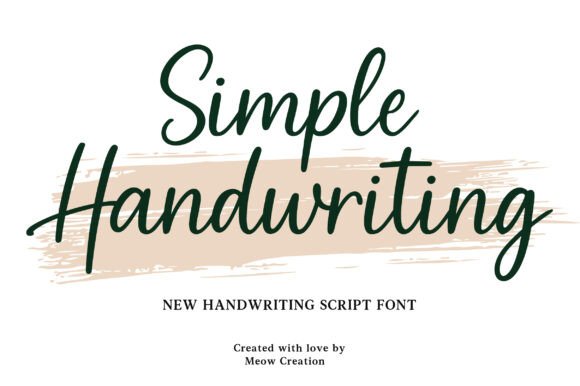
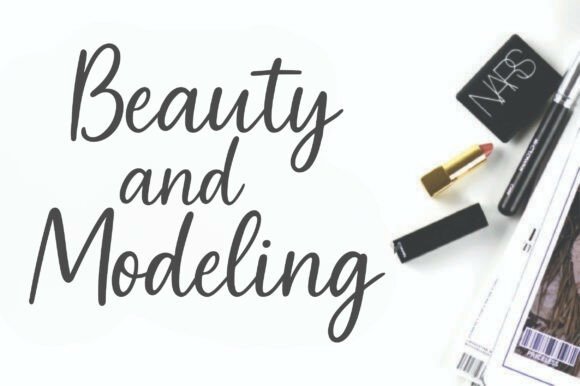
Simple Handwriting by Meow Creation is one of the most practical options in this collection. Its uncomplicated construction gives it the appearance of tidy everyday writing rather than formal calligraphy.
That restrained style makes it easier to use across projects that need personality but cannot sacrifice clarity. It suits planner inserts, printable notes, worksheets, journal prompts, care cards, and product instructions.
Simple handwriting fonts are also useful when a conventional sans serif feels too impersonal. This one can humanize short supporting text without immediately turning the design into a wedding or luxury concept.
Avoid setting dense paragraphs in it. The handwritten rhythm is most convincing in headings, brief notes, labels, and short statements.
Best for: Printable notes, labels, worksheets
Key features: Clean strokes, casual structure, readable letterforms
2. Handmade Calligraphy
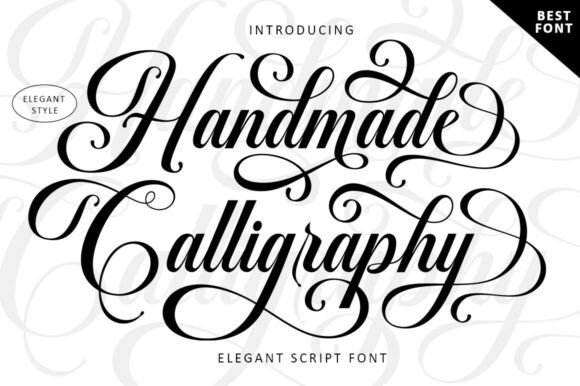
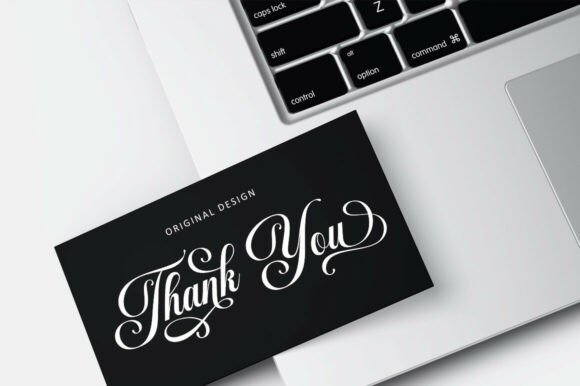
Handmade Calligraphy by Mastertype moves toward the more decorative side of handwritten typography. It has the flowing rhythm expected from calligraphy, giving words a polished and intentional appearance.
This is better suited to prominent text than everyday information. Names on invitations, short packaging phrases, thank-you cards, wedding signage, and beauty-brand graphics are natural applications.
The font carries noticeable visual weight even when the strokes are relatively delicate. Give it breathing room and avoid crowding it with floral illustrations, borders, swashes, and other decorative details at the same time.
For a cleaner hierarchy, pair it with an understated sans serif. Let the calligraphy handle the emotional message while the secondary font carries dates, ingredients, contact details, or instructions.
Best for: Invitations, packaging, wedding signage
Key features: Flowing construction, calligraphic rhythm, decorative contrast
3. Luxodia Signature
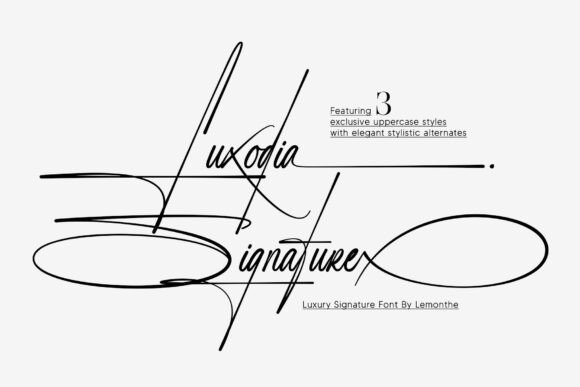
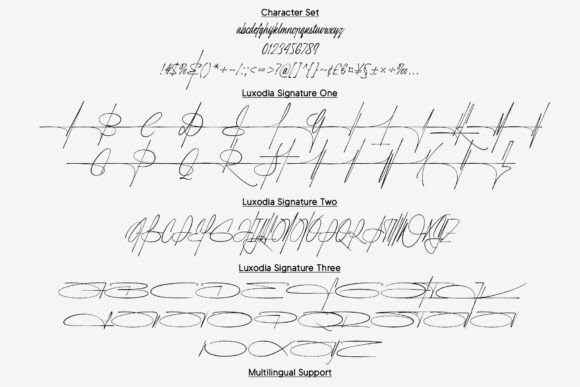
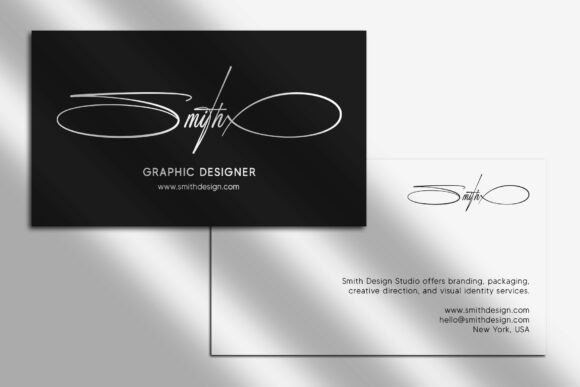
Luxodia Signature by Lemonthe has the elongated movement associated with contemporary signature fonts. It feels more refined than casual handwriting, but it does not have the heavily ornamented appearance of traditional wedding calligraphy.
That middle ground is useful for photographers, coaches, beauty businesses, consultants, and personal brands. It can create a convincing signature-style wordmark when the brand name is relatively short.
Signature fonts tend to lose clarity quickly when reduced. Luxodia is most effective when used as a display element rather than a compact label or paragraph font. Test the thinnest strokes at the actual output size before approving packaging or print materials.
A neutral serif or geometric sans serif will give it enough contrast to remain distinctive.
Best for: Personal logos, beauty brands, signatures
Key features: Long strokes, refined movement, modern signature style
4. Honey
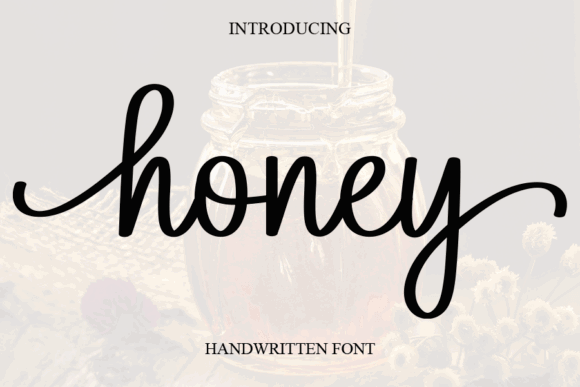
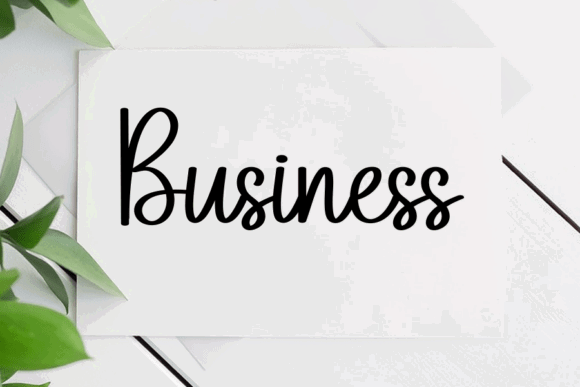
Honey by Salma Studio has an approachable handwritten character that feels suitable for small-business branding. It appeared prominently in Creative Fabricaโs current popular font selection during research.
The style fits boutique packaging, thank-you inserts, social graphics, product tags, and short quotes. It adds warmth without forcing the entire design into a formal calligraphy direction.
Are handwritten fonts readable on product labels?
They can be, but decorative scripts should normally be limited to the product name or a short phrase. Ingredients, instructions, dimensions, and safety information should use a clearer supporting font.
Can I use handwritten fonts for Cricut products?
Many handwritten fonts can be used in Cricut Design Space after installation. Before cutting, inspect thin connections, overlapping strokes, enclosed counters, and small details that may be difficult to weed.